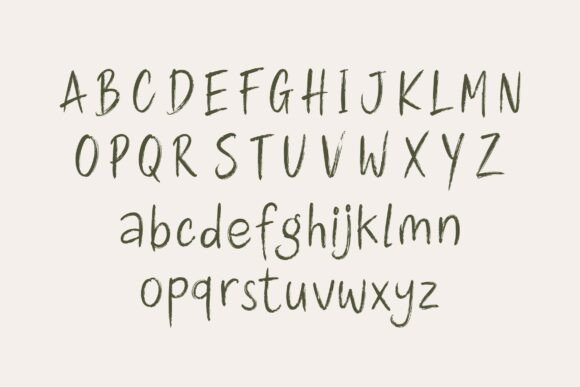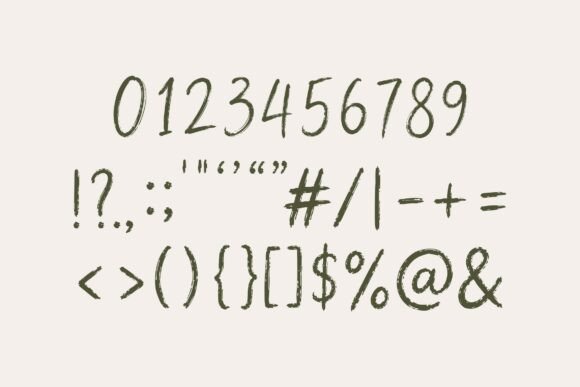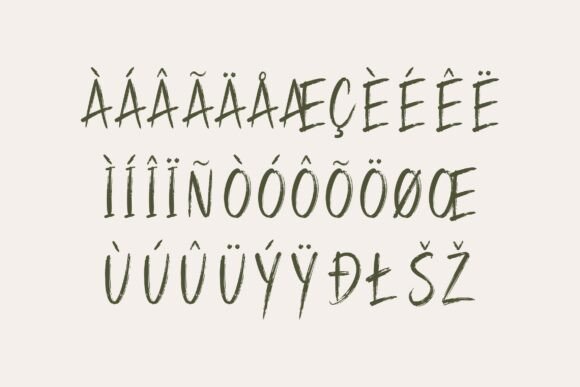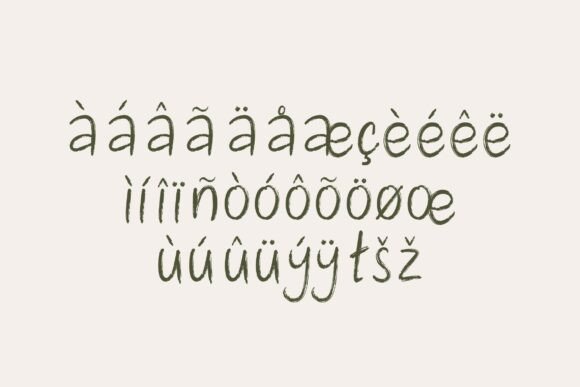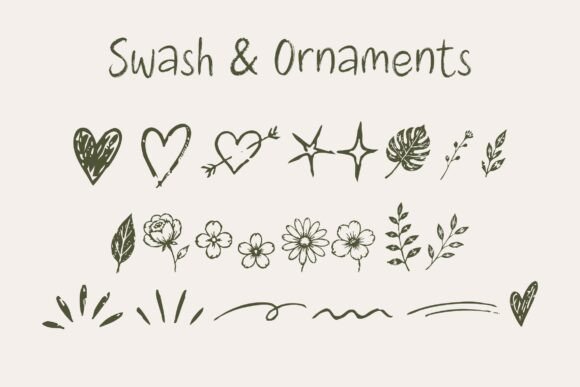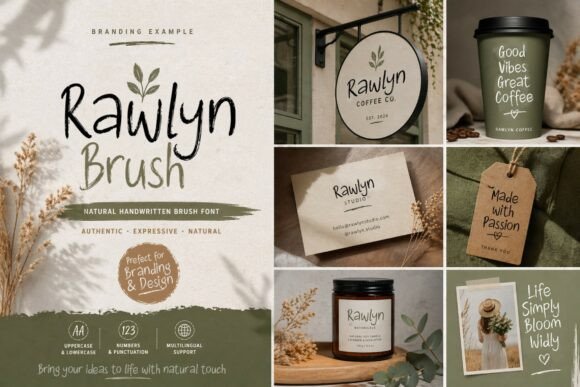
Discover the Unique Charm of Rawlyn Brush Font
Have you ever found yourself doodling in the margins of a notebook, letting your pen wander across the page in a joyful, unbridled dance? That’s the kind of creative freedom that Rawlyn Brush Font embodies. This vibrant display script is more than just a font – it’s an invitation to inject raw, organic energy into your projects and connect with your audience on a deeper level.
As a designer, you’re constantly on the lookout for high-quality design resources that can elevate your work and set you apart from the crowd. Rawlyn Brush Font is a valuable addition to any creative toolkit, offering a unique blend of artisanal charm and modern sophistication. With its tall, hand-drawn letterforms and textured “dry-brush” strokes, this font is perfect for independent cafe identities, boutique organic product packaging, and inspirational quote art.
Whether you’re working on a high-impact social media header or a free download for a design community, Rawlyn Brush Font is sure to bring a touch of authenticity and personality to your project. So why settle for a generic font when you can unleash the expressive soul of Rawlyn Brush and make your designs truly stand out?
Key Features of Rawlyn Brush Font
- Unique Brush Stroke Design: The Rawlyn Brush Font features a distinctive brush stroke design that adds a creative touch to any project.
- High-Quality Design Resource: This font is a high-quality design resource that can elevate the visual appeal of any creative project.
- Perfect for Hand-Drawn Projects: The Rawlyn Brush Font is ideal for designers working on hand-drawn or hand-painted projects, adding a personal touch to their creative work.
Honest Review: Rawlyn Brush Font
I recently came across the Rawlyn Brush Font, and I must say it’s been a game-changer for my creative projects. This font is a high-quality design resource that’s perfect for anyone looking to add a personal touch to their work.
Here are some of the things I love about the Rawlyn Brush Font:
- ✨ Its unique brush-style design makes it perfect for adding a hand-drawn feel to digital art.
- ✨ The font is highly customizable, allowing me to adjust the size, color, and style to suit my needs.
- ✨ The transparent background makes it easy to use with any background image or color.
- ⚠️ The font is not suitable for large blocks of text, as the brush-style design can be difficult to read in bulk.
- ⚠️ Some users may find the font’s imperfections (such as slight variations in stroke width) to be distracting.
Overall, I’m thoroughly impressed with the Rawlyn Brush Font. It’s a fantastic addition to my design toolkit, and I’ve already used it in several high-profile projects. If you’re looking for a unique and high-quality font for your creative project, I highly recommend checking it out – and the best part? It’s available for free download!